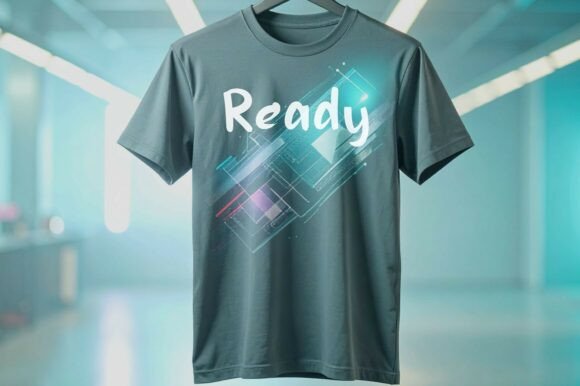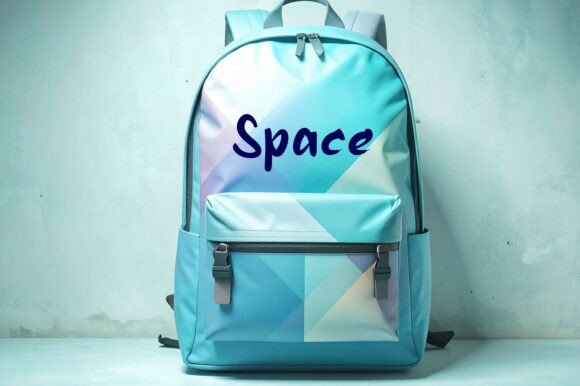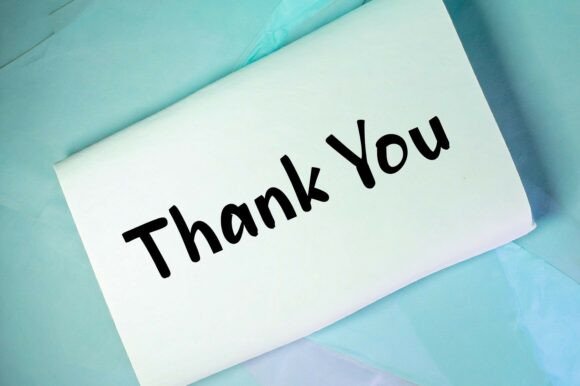
Unleash the Power of Biasa Font: Elevate Your Designs with Confidence and Elegance
Are you searching for a font that embodies robust vitality and dynamic spirit? Look no further than the captivating “Biasa” brush script font. With its thick, energetic strokes and effortless fluidity, Biasa harmoniously balances eye-catching impact with genial charm. This precision-constructed font is the perfect choice for designers and crafters seeking to infuse their work with bold confidence and unpretentious elegance.
The Artisanal Essence of Biasa
Biasa boasts an artisanal essence, characterized by variations in baseline and width. This unique feature creates a raw magnetism that is both modern and organically appealing. The font’s dynamic strokes and fluid movements evoke a sense of energy and spontaneity, making it perfect for designs that require a personal touch. Whether you’re working on branding, poster design, social media visual elements, packaging, or heartfelt personalized gifts, Biasa is the ideal choice.
A Font for Diverse Applications
One of the standout features of Biasa is its versatility. This font caters to a wide range of applications, from punctuation glyphs to diverse design styles. With Biasa, you can create a cohesive visual identity across various platforms, ensuring that your message is conveyed with clarity and impact. The font’s compatibility with a broad array of design tools makes it easy to integrate into your workflow.
Biasa in Design: Endless Possibilities
Imagine using Biasa to create stunning posters, eye-catching social media graphics, or beautifully designed packaging. The font’s bold, confident strokes and elegant fluidity make it perfect for:
- Branding: Establish a strong visual identity with Biasa’s unique and recognizable style.
- Poster Design: Create attention-grabbing posters that showcase your message with clarity and impact.
- Social Media Visual Elements: Elevate your social media presence with Biasa’s engaging and dynamic graphics.
- Packaging: Add a touch of elegance and sophistication to your product packaging with Biasa’s refined strokes.
- Personalized Gifts: Create heartfelt, personalized gifts that showcase your thoughtfulness and attention to detail.
Why Choose Biasa?
So, what sets Biasa apart from other fonts? Here are just a few reasons why designers and crafters love working with Biasa:
- Unique Style: Biasa’s artisanal essence and dynamic strokes create a distinctive look that’s hard to replicate.
- Versatility: Biasa’s compatibility with various design tools and applications makes it a versatile choice for diverse projects.
- Ease of Use: Biasa’s precision-constructed design ensures that it’s easy to use and integrate into your workflow.
- Emotional Connection: Biasa’s bold, confident strokes and elegant fluidity evoke an emotional response, making it perfect for designs that require a personal touch.
In conclusion, Biasa is a game-changing font that can elevate your designs with confidence and elegance. Its unique artisanal essence, versatility, and ease of use make it a must-have for designers and crafters seeking to create stunning visual identities. With Biasa, you can infuse your work with a steady confidence and zesty allure that’s sure to captivate your audience. So why wait? Let Biasa carry the bold flag of your artistry and unlock a world of creative possibilities.